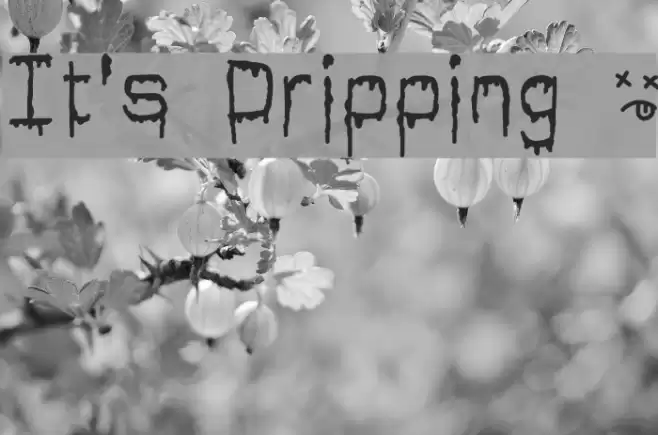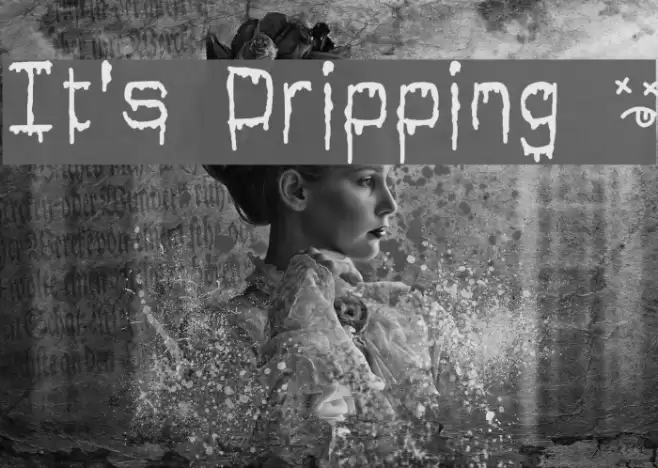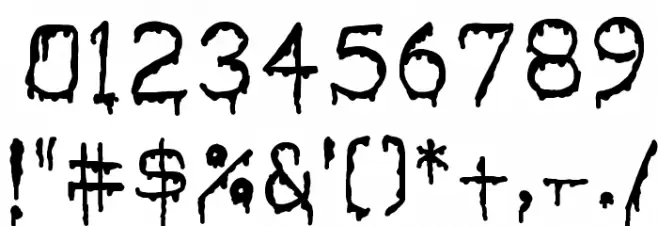
It's Dripping ~ Font
It's Dripping ~ Description
This font features a unique and eye-catching design with a dripping effect that gives each character a melting appearance. The letters appear as if they are formed from a liquid substance, creating a sense of movement and fluidity. The uppercase and lowercase letters maintain a consistent style, with irregular edges and varying thickness that enhance the dripping illusion. Numbers and special characters follow the same theme, adding to the font's cohesive look. This font is perfect for projects that require a bold and dramatic visual impact, such as Halloween-themed designs, horror movie posters, or any creative work that seeks to evoke a sense of eeriness or suspense.
A dripping, liquid-like font ideal for dramatic and eerie designs from Horror fonts.
- Proposed Projects: Halloween posters, horror movie titles, spooky event invitations, themed merchandise.